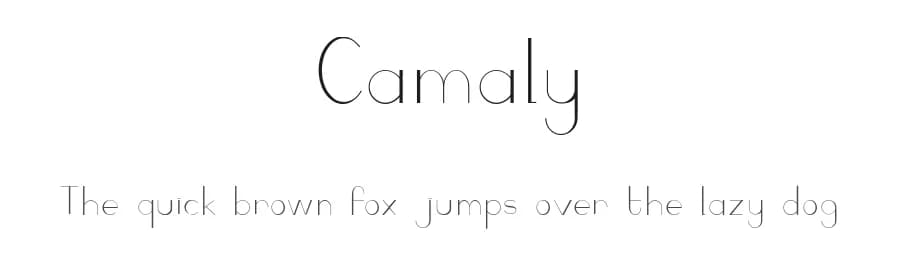
About Camaly Font
Camaly Font is a versatile sans-serif font that works for both headings and body text. Pair it with a contrasting serif or slab serif font to add visual interest and a clear distinction between titles and body copy.
Camaly Font
by Jason NG